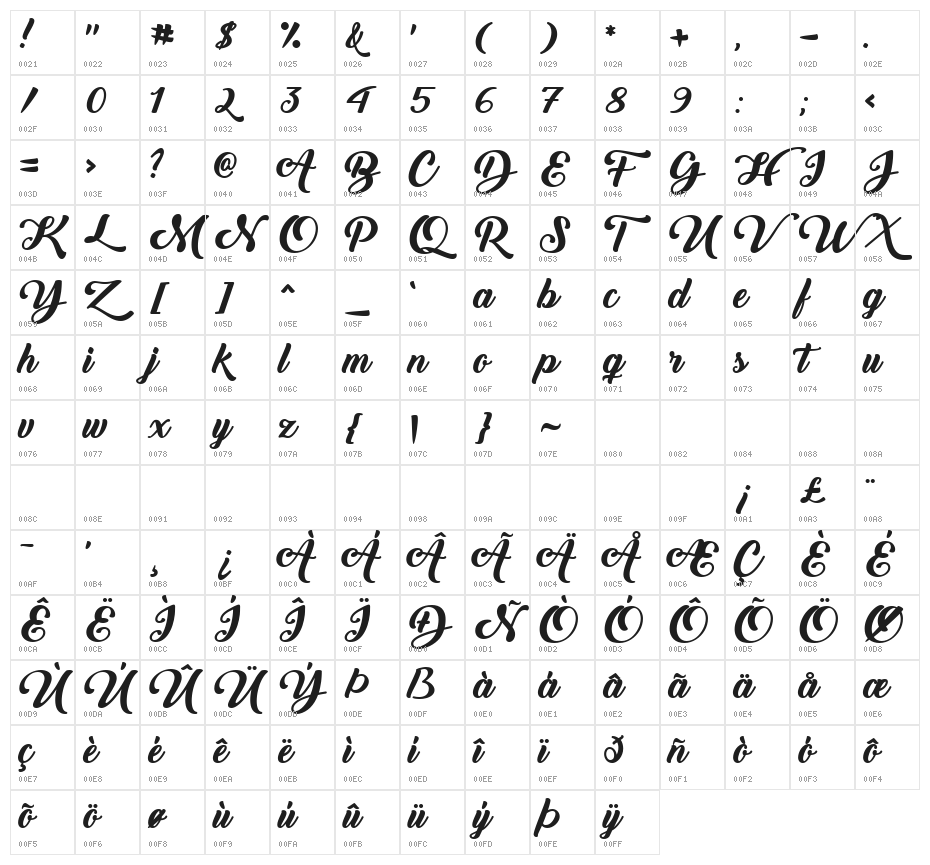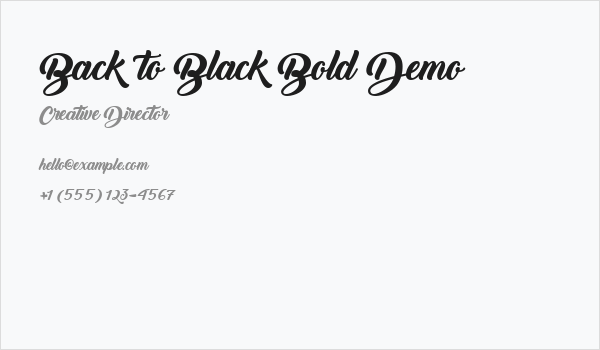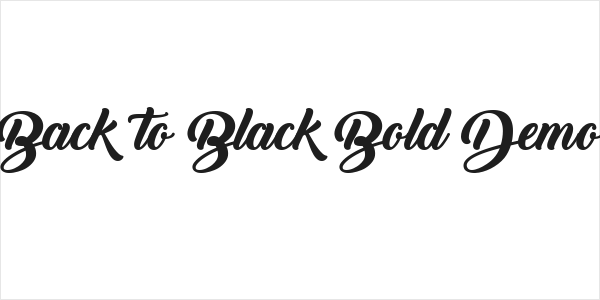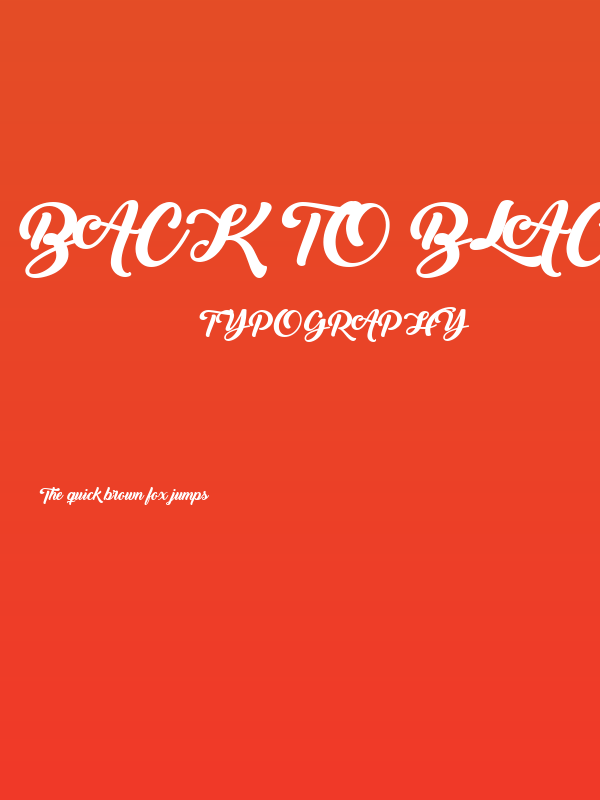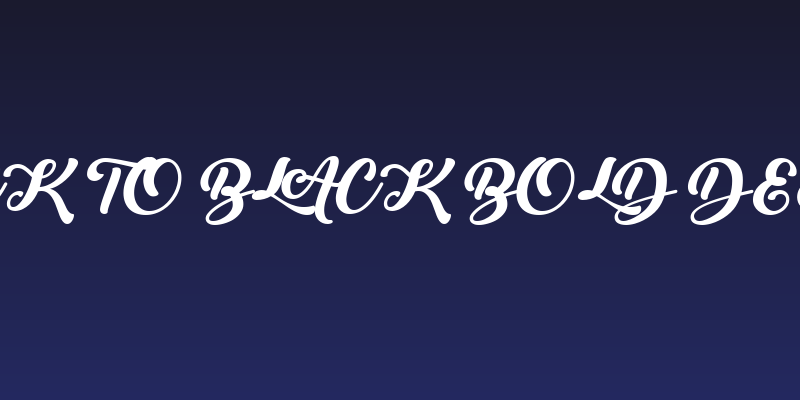
Back to Black Bold Demo Font
Back to Black Bold Demo Description
This font exhibits a bold, cursive style with a strong emphasis on fluidity and elegance. The uppercase letters are characterized by sweeping curves and flourishes, giving them a dynamic and expressive appearance. The lowercase letters maintain a consistent flow, with smooth connections between characters, enhancing readability while preserving the script's artistic flair. The numerals are designed with a similar cursive touch, ensuring uniformity across the character set. Special characters are integrated seamlessly, maintaining the overall aesthetic. This font's boldness and decorative elements make it ideal for impactful and stylish designs.
| Proposed Projects | Ideal for wedding invitations, branding, logo design, and decorative headlines. |